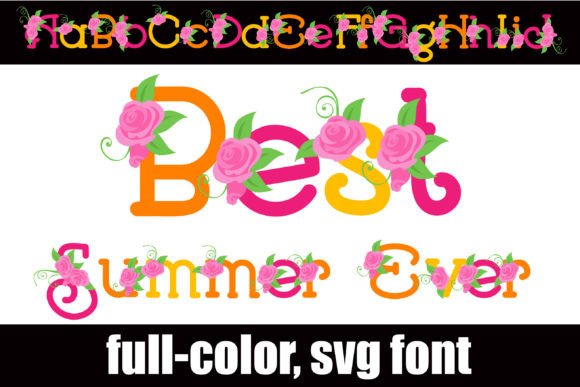
Best Summer Ever Font: Elevate Your Designs with a Vibrant and Colorful Typeface
Are you looking for a font that can add a touch of personality and whimsy to your designs? Look no further than the Best Summer Ever Font, a full-color, flourished serif font that is perfect for titles, displays, posters, and more. In this article, we’ll take a closer look at this beautiful font, its features, and how you can use it to elevate your designs.
What is Best Summer Ever Font?
Best Summer Ever Font is a unique and eye-catching font that features flowers throughout its letters and characters. This font is a perfect choice for designers who want to add a touch of elegance and sophistication to their designs. The font comes with an alt case, which offers additional colors that can be accessed through your system’s character map.
Key Features of Best Summer Ever Font
- Full-color and flourished serif font: This font features a beautiful, full-color design with flowers throughout its letters and characters.
- Alt case with additional colors: The font comes with an alt case that offers additional colors that can be accessed through your system’s character map.
- Perfect for titles, displays, posters, and more: This font is ideal for use in titles, displays, posters, and other design projects where you want to make a statement.
The Benefits of Using Full-Color SVG Fonts
Full-color SVG fonts, like Best Summer Ever Font, offer a range of benefits for designers. Some of the advantages of using these fonts include:
- Add a touch of personality to your designs: With a full range of colors and styles to choose from, you can create unique and eye-catching designs that reflect your personality and brand.
- Create anything from simple text logos to complex illustrations: Full-color SVG fonts are versatile and can be used to create a wide range of designs, from simple text logos to complex illustrations.
- Scalable to any size without losing quality: SVG fonts are vector-based, which means they can be scaled to any size without losing quality. This makes them perfect for use in a variety of design projects, from business cards to billboards.
Tips for Using Best Summer Ever Font
Here are some tips for using Best Summer Ever Font in your designs:
- Use it for titles and headings: This font is perfect for use in titles and headings, where you want to make a statement and add a touch of elegance to your design.
- Experiment with different colors and styles: Don’t be afraid to experiment with different colors and styles to find the perfect combination for your design.
- Pair it with other fonts: Best Summer Ever Font can be paired with other fonts to create a unique and eye-catching design.
Best Summer Ever Font is a beautiful and unique font that can add a touch of personality and whimsy to your designs. With its full-color, flourished serif design and compatibility with Silhouette Studio and other programs, it’s perfect for use in titles, displays, posters, and more. Whether you’re a designer or crafter, this font is sure to elevate your designs and help you create something truly special.